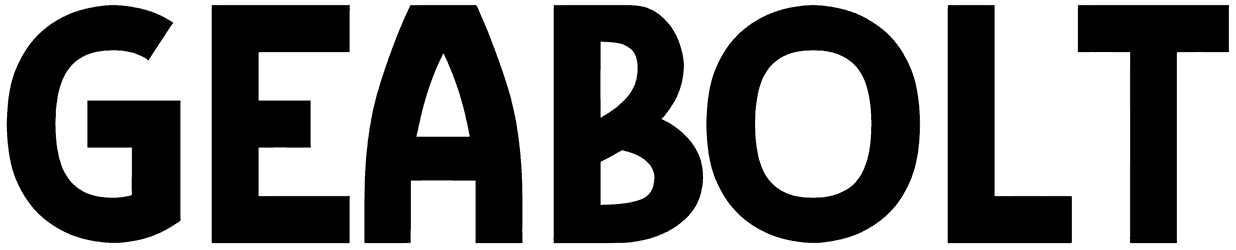
Geabolt Font
When you choose a modest letterform for your words, the final draft will reflect a professional and modern vibe to your viewers. This sans serif font with its bold and humble visual can attract your potential clients. All characters of the Geabolt font are available, and you can count on it for numerous projects, such as a healthcare poster or an aerospace company billboard.